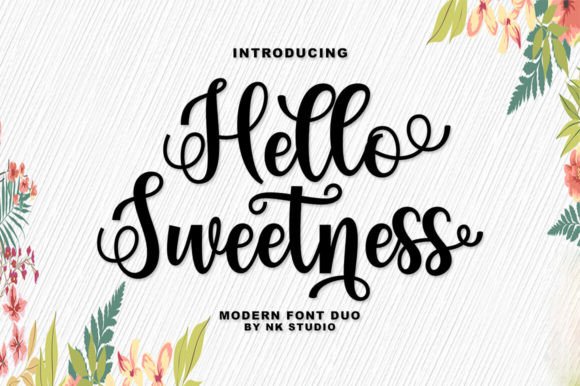
Meet Hello Sweetness, a calligraphy script font designed to make your words dance on the page. Crafted with exquisite care, this font family is the epitome of beauty and uniqueness, turning your designs into breathtaking works of art.
Hello Sweetness is a remarkably versatile font that lends its charm to a wide array of creative projects. Whether you're crafting elegant wedding invitations, thank you cards, or heartfelt quotes, this font will effortlessly elevate your designs. Its delicate lines add a touch of grace to logos and business cards, while its whimsical nature enchants greeting cards and social media posts.
With Hello Sweetness, you'll discover a world of design possibilities. Its irregular baseline and trendy, feminine style create a dynamic effect that captivates the eye. Imagine your resume standing out from the crowd, adorned with this font's carefully crafted characters. Each letter flows seamlessly into the next, creating a visual symphony that commands attention.
Beyond its aesthetic appeal, Hello Sweetness is a versatile font that caters to your creative vision. Its multilingual support allows you to connect with audiences worldwide, while its extensive character set, including initial and final letters, and alternatives, empowers you to add a personal touch to your designs.
Hello Sweetness is more than just a font; it's an invitation to let your creativity soar. Its enchanting charm will transform your words into visual masterpieces, leaving a lasting impression on your audience. Embrace the beauty of Hello Sweetness and unlock the full potential of your design endeavors.